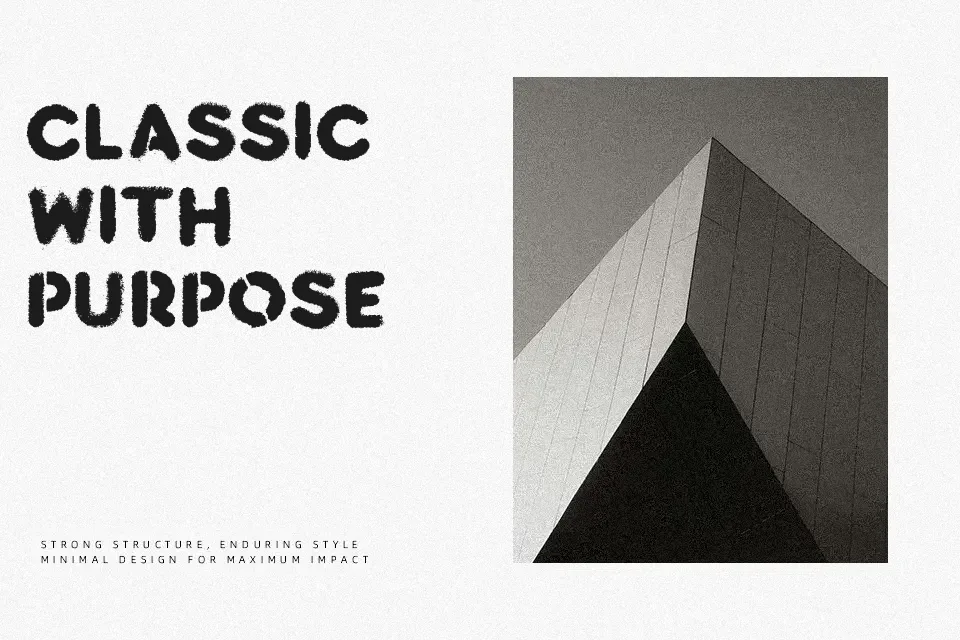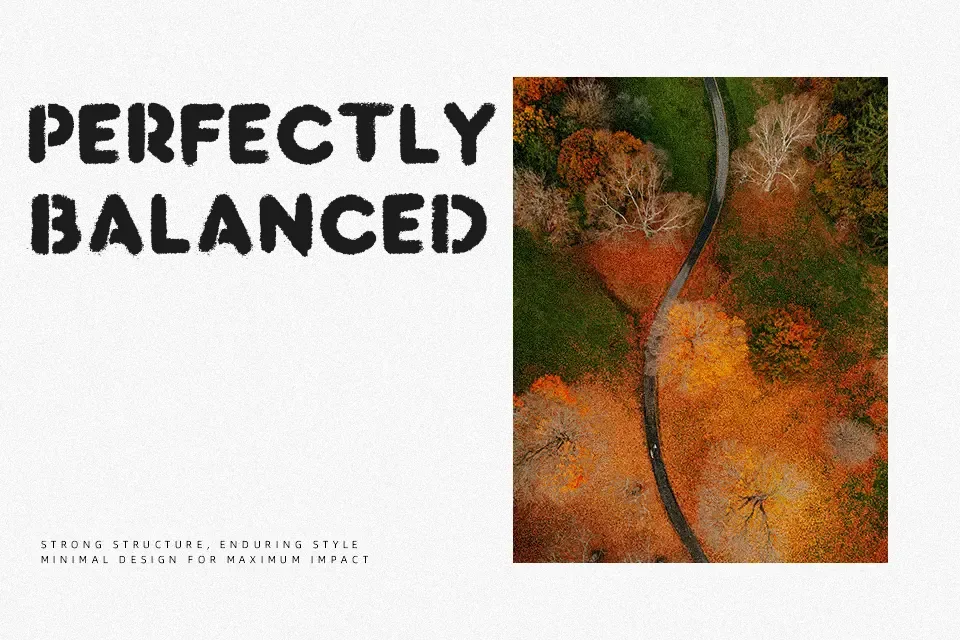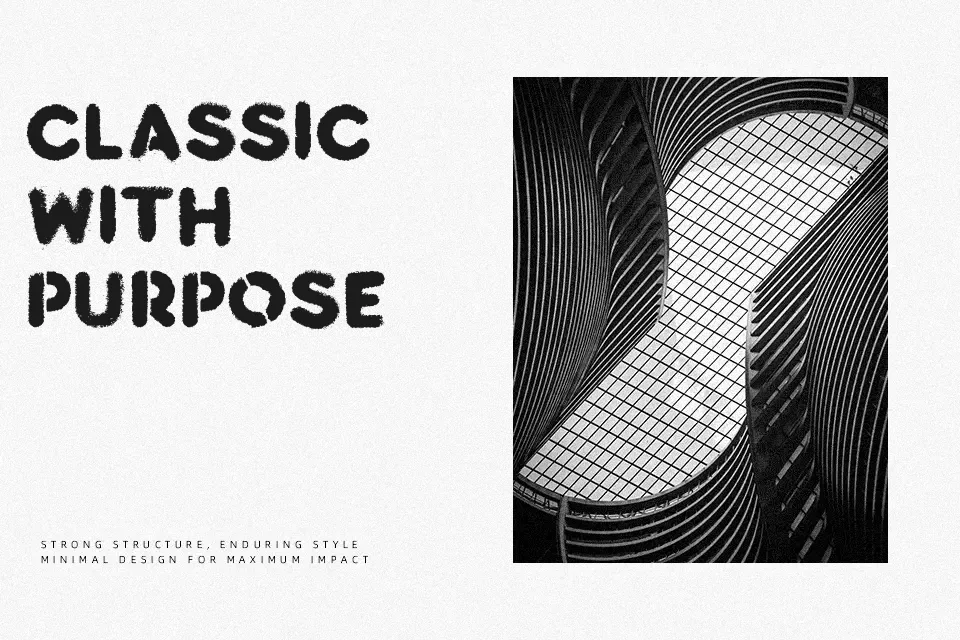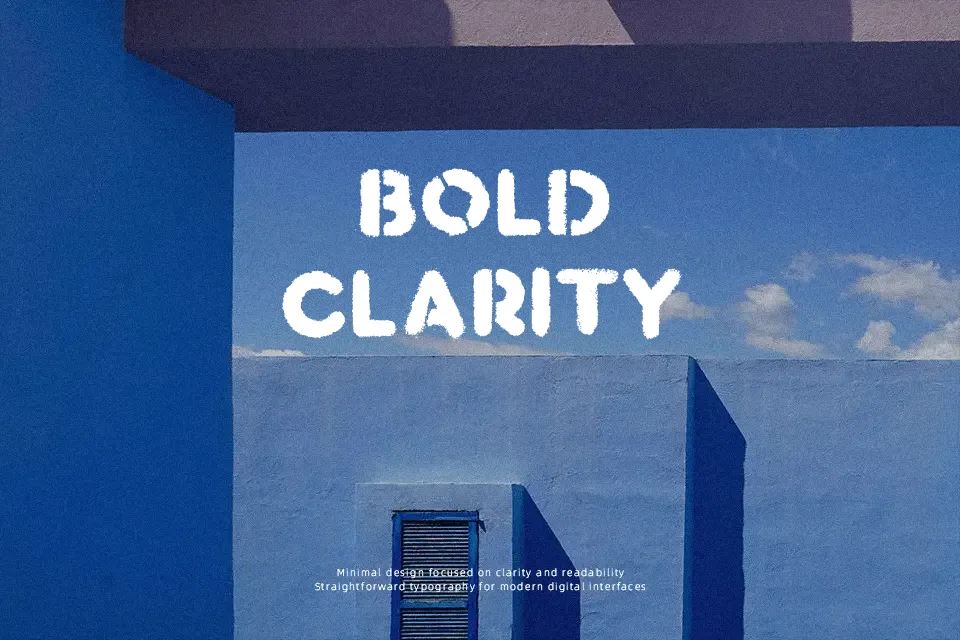
Reclaim Font
Designed by Nils von Blanc
Reclaim Font immediately establishes a commanding structural presence through its rigid stencil construction. The letterforms display thick, heavy strokes interrupted by precise utilitarian breaks, giving the design an authentic military aesthetic. Its wide proportions and open spacing allow the characters to maintain strong legibility in large display settings. The bold strokes improve visibility in outdoor posters and industrial branding. However, these same heavy, broken forms reduce comfort during extended reading, making the typography less suitable for continuous body text. This typeface performs exceptionally well in bold headlines, tactical video game interfaces, and rugged apparel graphics where conveying strength is the primary objective.
military video game interfaces
industrial product packaging
rugged apparel graphics
heavy machinery branding
continuous paragraph reading
delicate wedding invitations
Perfect for branding, gaming, and headline, with a bold and display style.